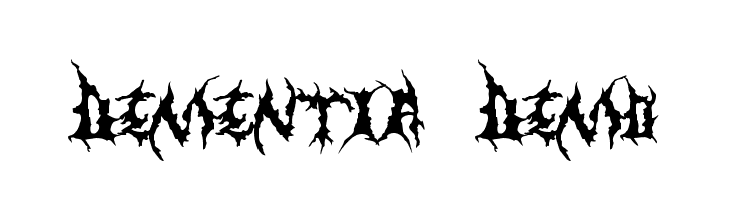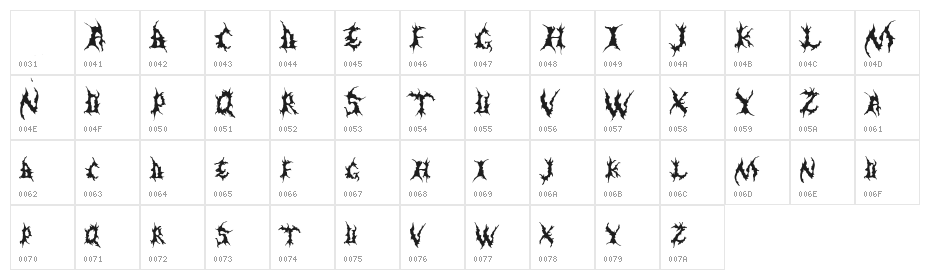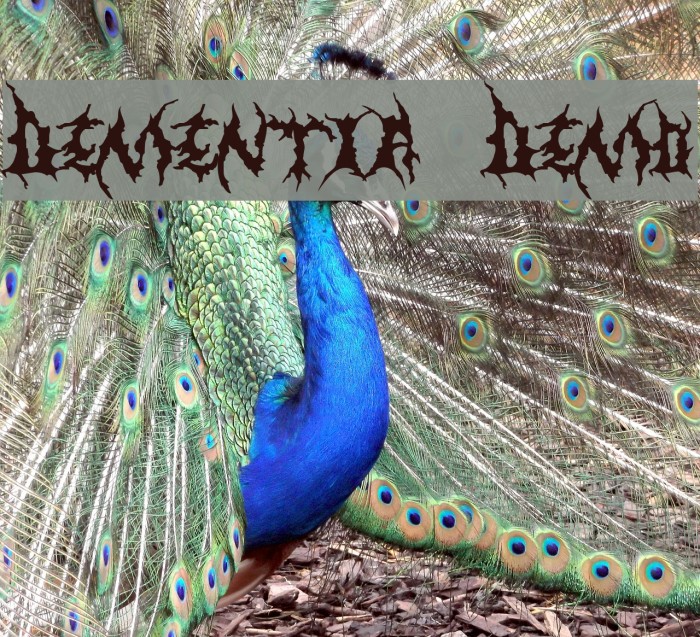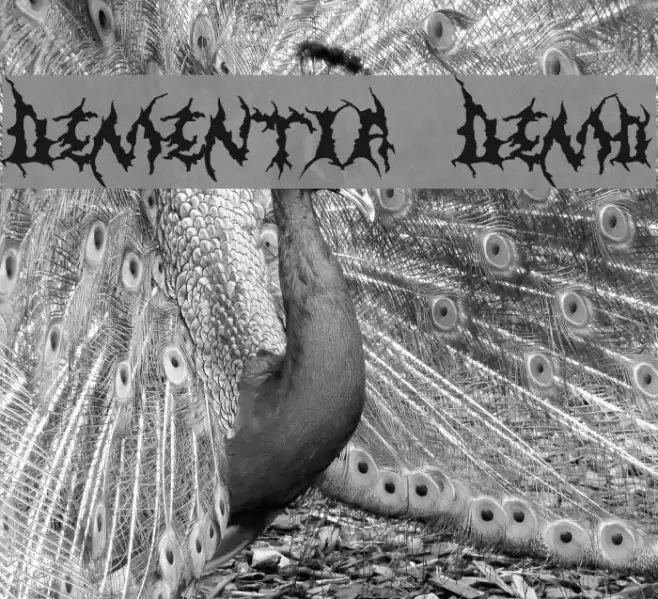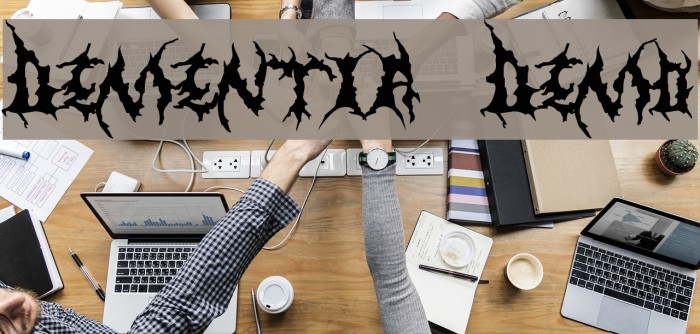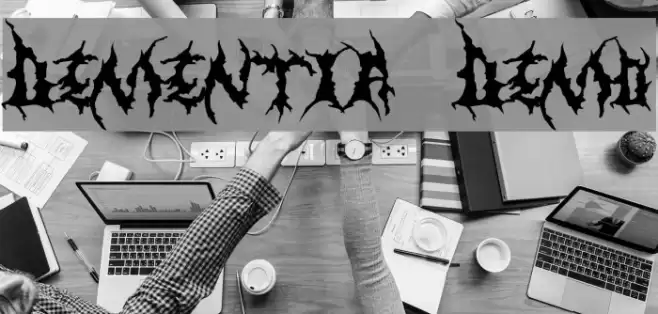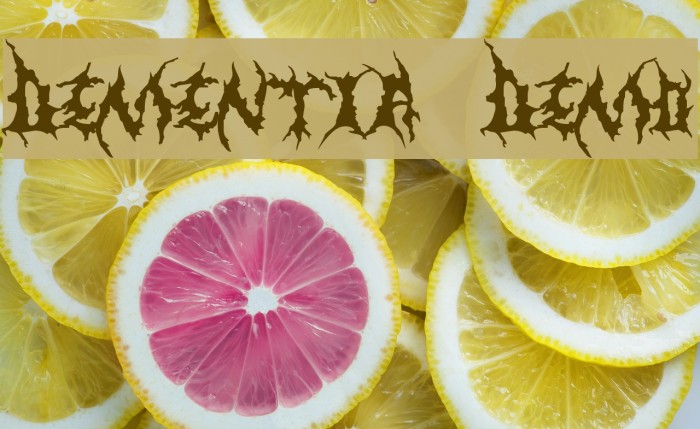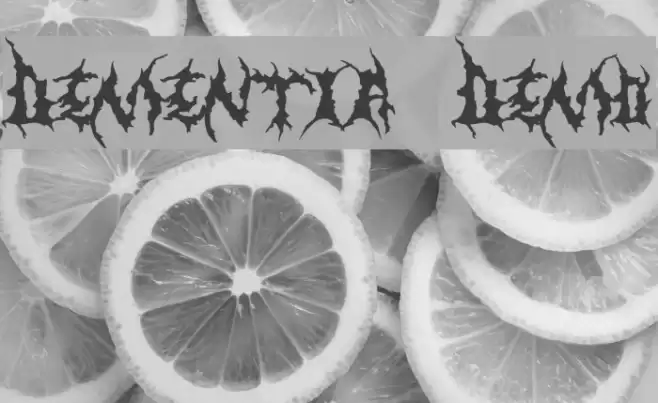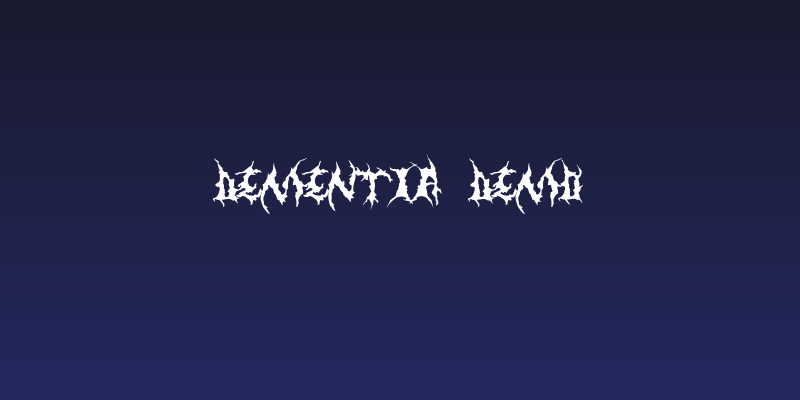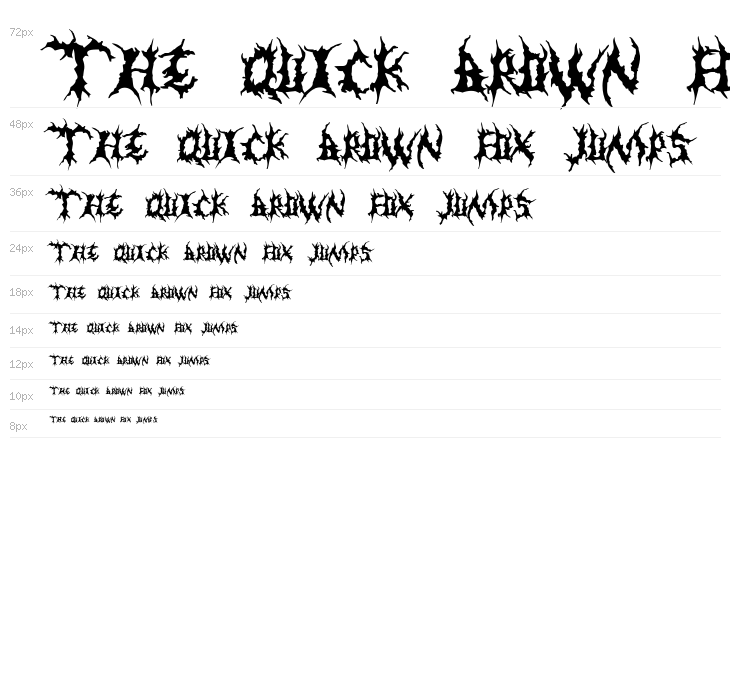
Dementia Demo Font
Dementia Demo Description
This font features an aggressive and jagged design, reminiscent of thorny vines or sharp spikes. Each character is uniquely crafted with irregular edges, creating a chaotic yet visually striking appearance. The uppercase and lowercase letters maintain a consistent style, emphasizing the font's bold and rebellious nature. The numbers and special characters follow the same design principles, ensuring uniformity across all glyphs. This font's distinct style makes it stand out, ideal for projects that require a dramatic and intense visual impact.
Use CaseLogos, Posters, Headlines
Proposed ProjectsIdeal for horror-themed designs, band logos, edgy posters, and any project requiring a dramatic and intense aesthetic.